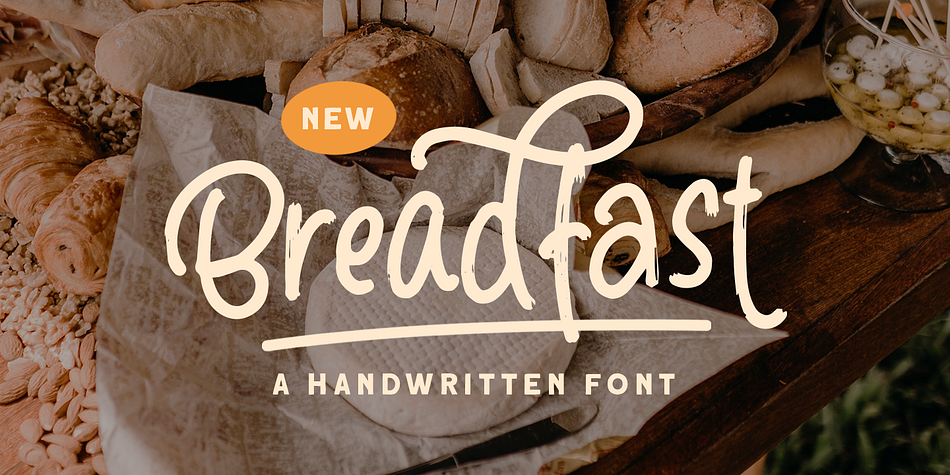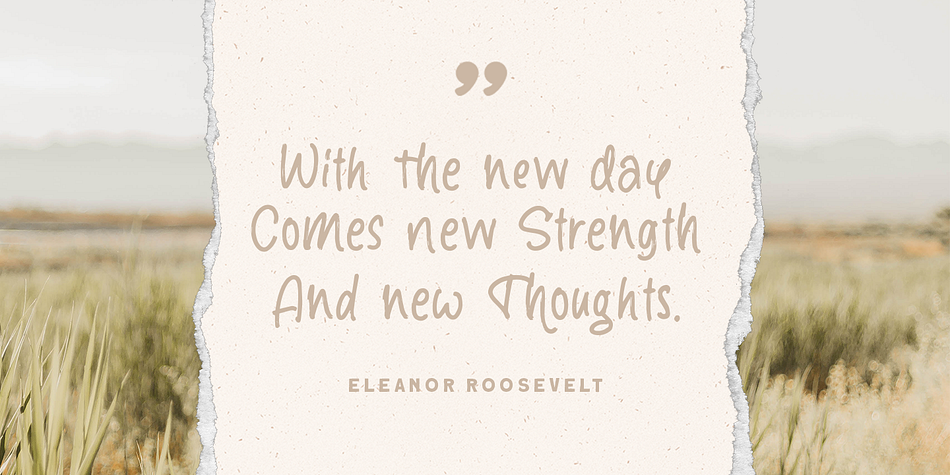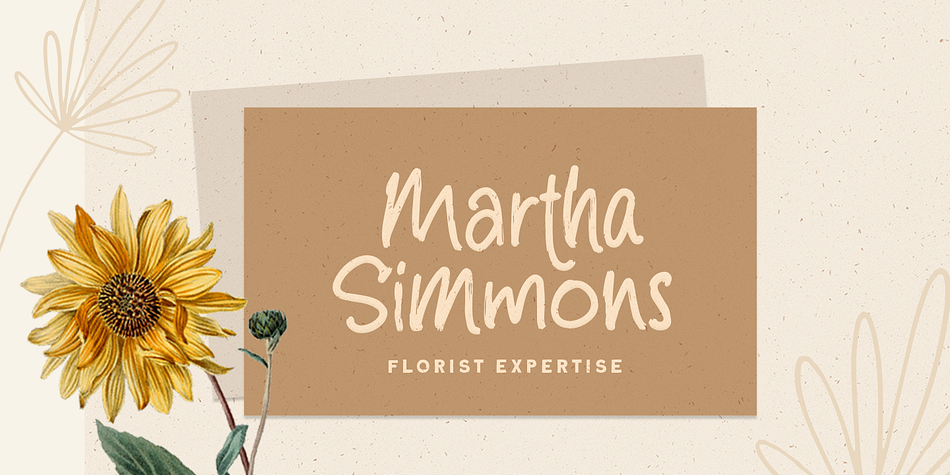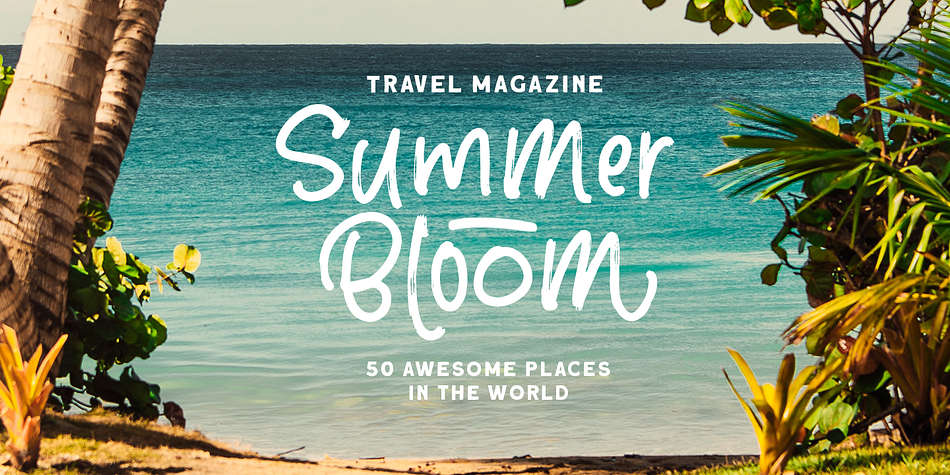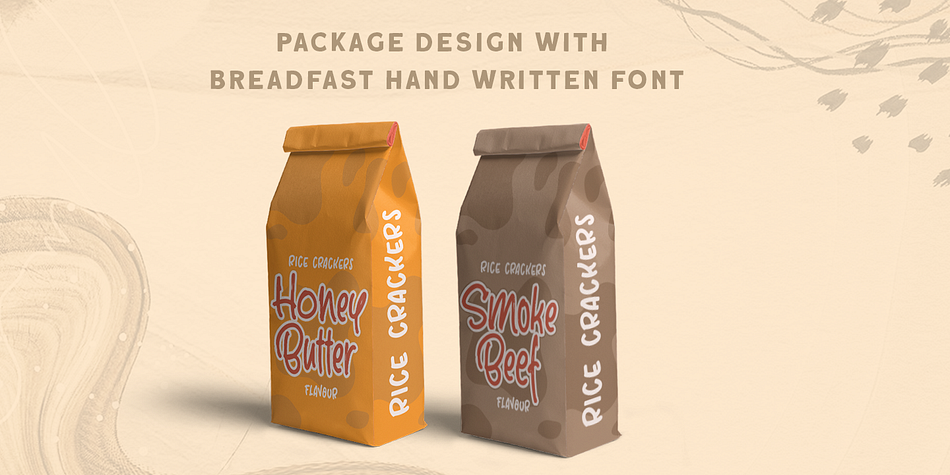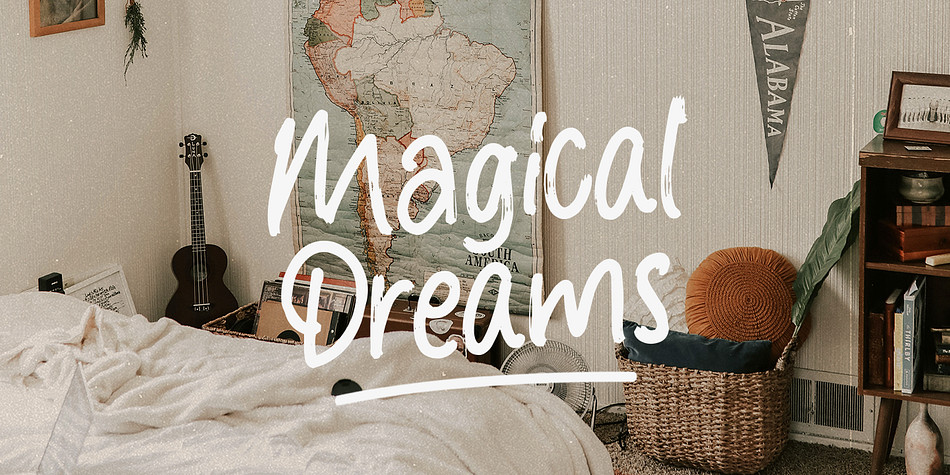
Designed by Hendry Juanda, Breadfast is a hand drawn and script font published by Letterhend Studio.
Introducing Breadfast! Breadfast is a handwritten font that contain uppercase, lowercase, symbol, alternate, and also support multi language. you can use this font to make a logo for branding, quote, and playful design.